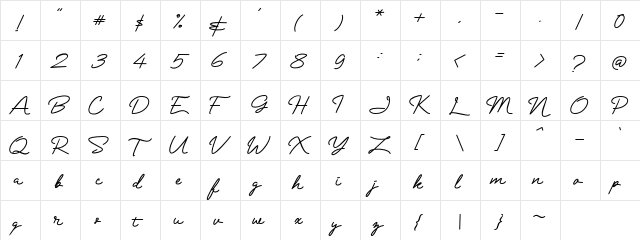
Mranggens Regular
Design Context for Mranggens Typeface
Mranggens is a composed and adaptable typeface that performs quietly and consistently across a wide range of design contexts.